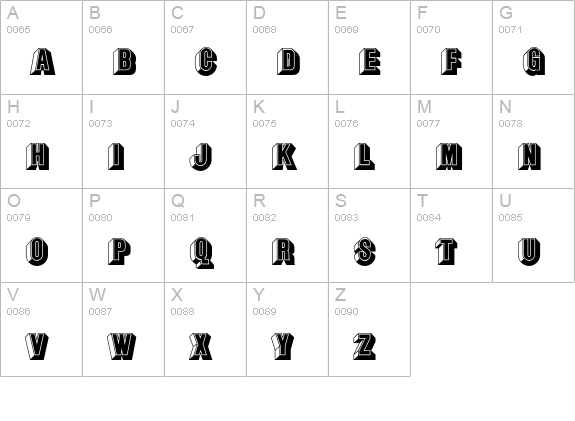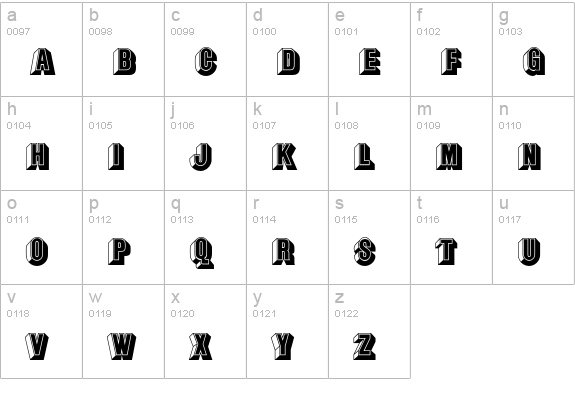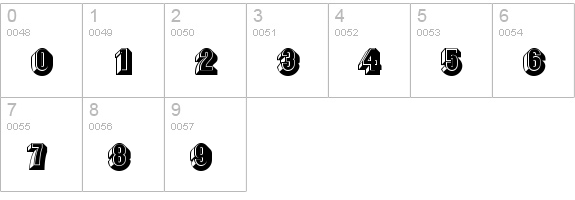
Buxom D Font Details
Buxom D font is a stunning display typeface that exudes elegance and sophistication. With its bold and curvaceous letterforms, this font is perfect for making a statement in headlines, logos, and branding materials. The unique design of Buxom D font sets it apart from other display fonts, making it a versatile choice for a variety of design projects. What's even better is that Buxom D font is available for free download at FontsMarket.com. This means that you can easily access this beautiful font to enhance your designs without breaking the bank. Whether you're a graphic designer, a blogger, or a business owner looking to elevate your visual identity, Buxom D font is a fantastic choice that won't cost you a penny. Download it today and add a touch of sophistication to your projects!